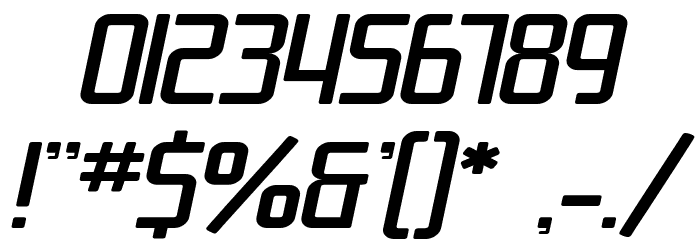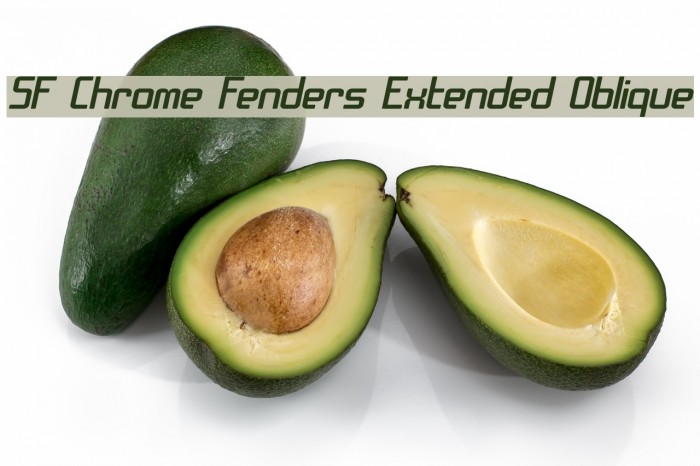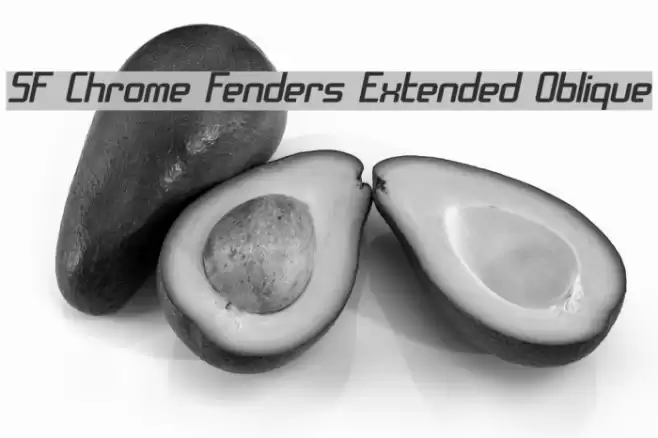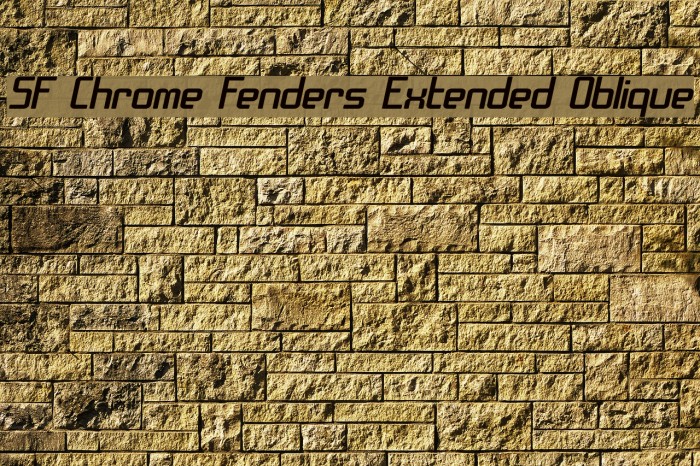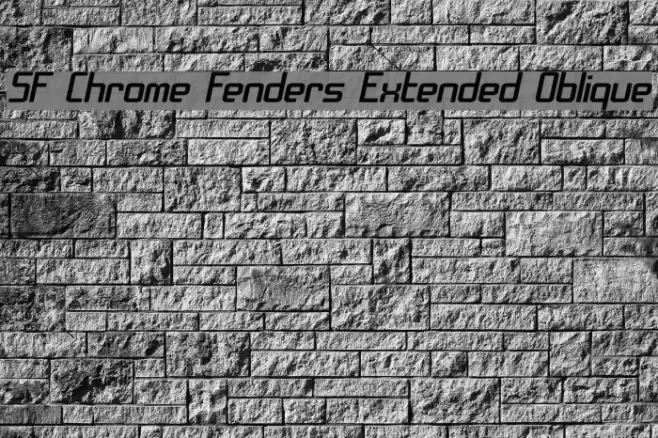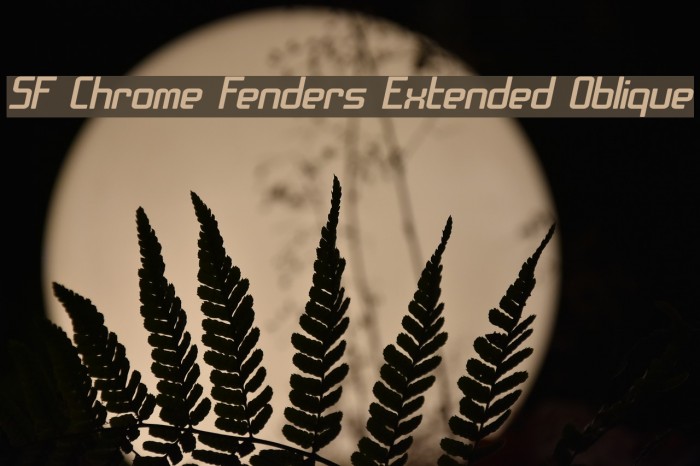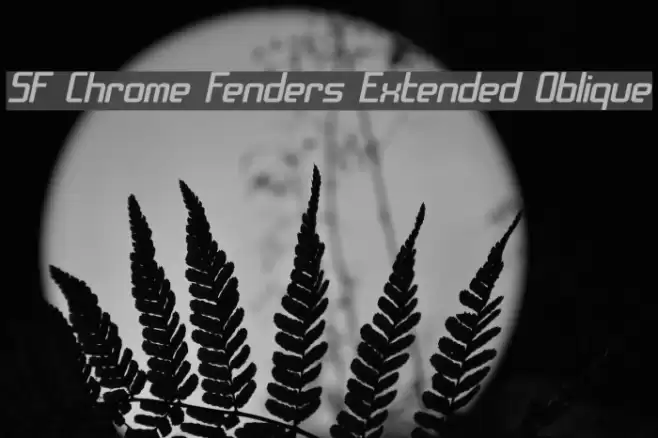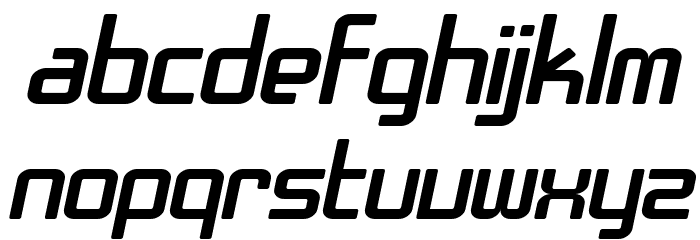
SF Chrome Fenders Extended Oblique Font
SF Chrome Fenders Extended Oblique Description
This font features a sleek, modern design with an extended oblique style, giving it a dynamic and forward-moving appearance. The characters are slightly condensed, with a uniform stroke width that maintains consistency across all glyphs. The uppercase and lowercase letters are well-proportioned, and the numerals are clear and distinct. Special characters are included, enhancing its versatility. The font's geometric structure and clean lines make it suitable for contemporary design projects, providing a futuristic and tech-savvy aesthetic.
| Use Case | Headlines, Logos, Digital interfaces |
| Proposed Projects | Ideal for tech branding, automotive design, futuristic posters, and digital interfaces. |